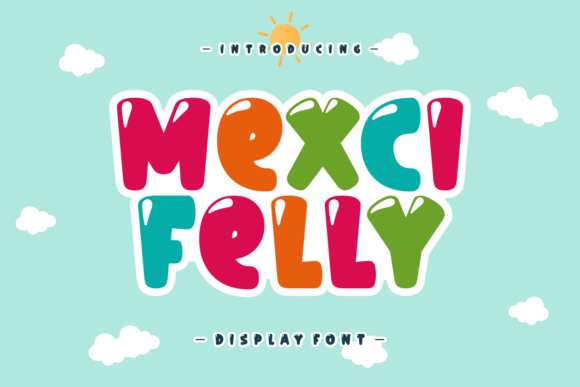
Mexci Felly Font: The Ultimate Choice for Fun and Lively Designs
Mexci Felly is a fun and lively font that has been gaining popularity among designers and artists. Its bold, rounded letters give off a playful and cheerful vibe, making it perfect for projects that need a touch of happiness and energy. In this article, we’ll explore the features and benefits of Mexci Felly font, and how it can elevate your designs to the next level.
What is Mexci Felly Font?
Mexci Felly is a modern, sans-serif font that is designed to bring a sense of joy and playfulness to your designs. Its unique and distinctive style makes it stand out from other fonts, and its bold, rounded letters give it a friendly and approachable feel. The font is perfect for use in a variety of design projects, including party invitations, posters, kids’ designs, and more.
Features of Mexci Felly Font
Mexci Felly font has several features that make it a great choice for designers. Some of its key features include:
- Bold and Rounded Letters: The font features bold, rounded letters that give it a playful and cheerful vibe.
- Unique and Distinctive Style: Mexci Felly has a unique and distinctive style that sets it apart from other fonts.
- Modern and Sans-Serif: The font is modern and sans-serif, making it perfect for use in a variety of design projects.
- Easy to Read: Despite its bold and playful style, Mexci Felly is easy to read, even at small sizes.
Benefits of Using Mexci Felly Font
There are many benefits to using Mexci Felly font in your designs. Some of the key benefits include:
- Adds a Touch of Happiness and Energy: The font’s playful and cheerful vibe adds a touch of happiness and energy to your designs.
- Perfect for Kids’ Designs: Mexci Felly is perfect for use in kids’ designs, such as children’s party invitations, posters, and more.
- Great for Party Invitations and Posters: The font is also great for use in party invitations and posters, adding a fun and lively touch to your designs.
- Easy to Pair with Other Fonts: Mexci Felly is easy to pair with other fonts, making it versatile and easy to use.
How to Use Mexci Felly Font in Your Designs
Using Mexci Felly font in your designs is easy. Here are a few tips to get you started:
- Use it as a Title Font: Use Mexci Felly as a title font to add a touch of happiness and energy to your designs.
- Pair it with Other Fonts: Pair Mexci Felly with other fonts to create a unique and visually appealing design.
- Experiment with Different Sizes and Colors: Experiment with different sizes and colors to find the perfect look for your design.
Best Practices for Using Mexci Felly Font
Here are a few best practices to keep in mind when using Mexci Felly font:
- Use it Sparingly: Use Mexci Felly sparingly to avoid overwhelming your design.
- Balance it with Other Fonts: Balance Mexci Felly with other fonts to create a visually appealing design.
- Consider Your Audience: Consider your audience and the tone you want to convey when using Mexci Felly.
Mexci Felly font is a fun and lively font that is perfect for adding a touch of happiness and energy to your designs. Its bold, rounded letters give it a playful and cheerful vibe, making it perfect for use in party invitations, posters, kids’ designs, and more. With its unique and distinctive style, modern and sans-serif design, and ease of use, Mexci Felly is a great choice for designers looking to elevate their designs to the next level.
- What is Mexci Felly font?: Mexci Felly is a modern, sans-serif font with bold, rounded letters that give off a playful and cheerful vibe.
- What is Mexci Felly font used for?: Mexci Felly is perfect for use in party invitations, posters, kids’ designs, and more.
- Is Mexci Felly easy to read?: Yes, despite its bold and playful style, Mexci Felly is easy to read, even at small sizes.